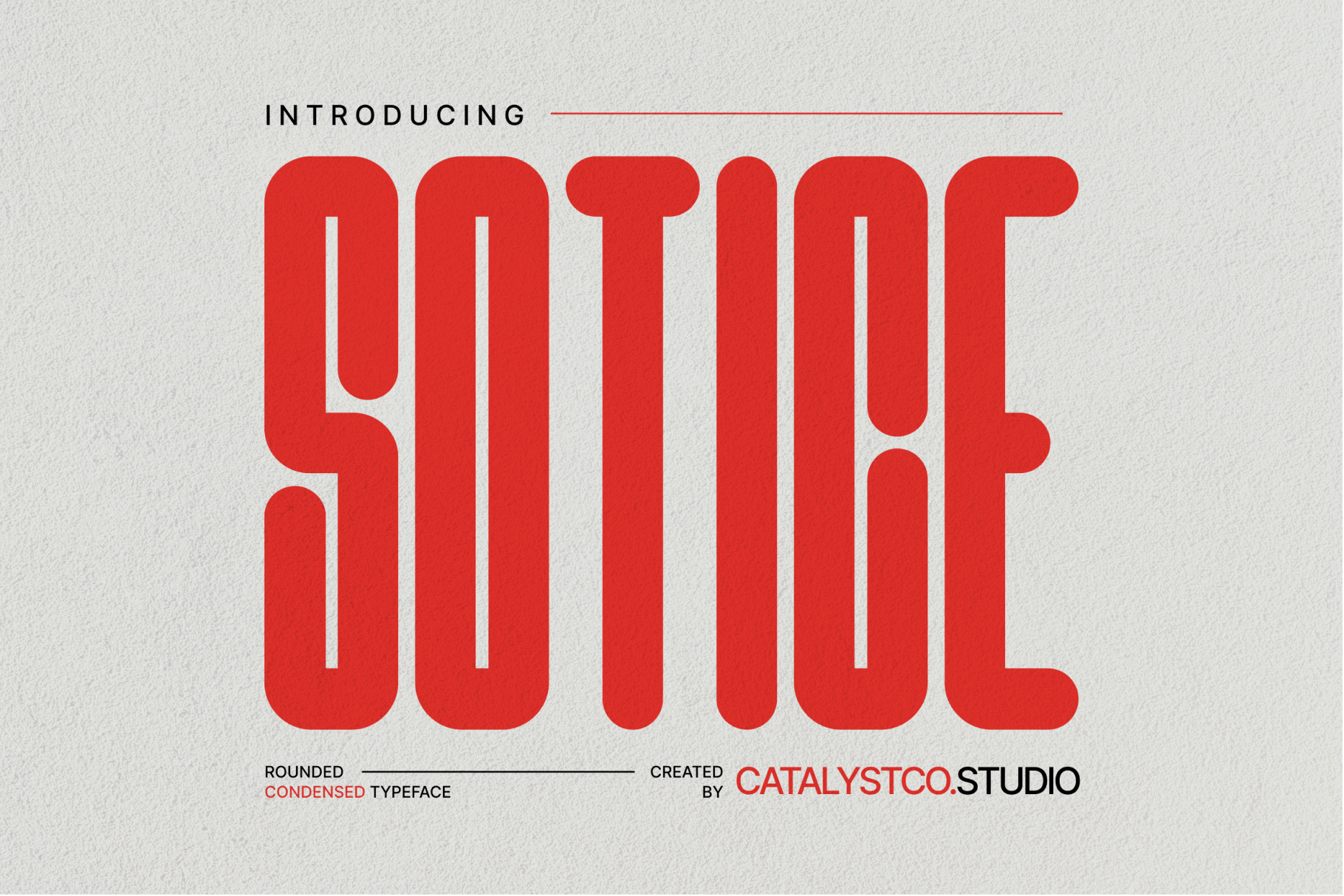
Sotice Rounded Condensed Font
Sotice Rounded Condensed Font typeface excellent used for the manufacture quote text, logotype, header magazine, and many more.
Main Features
- Ligatures & Alternate
- Numeral & Punctuations